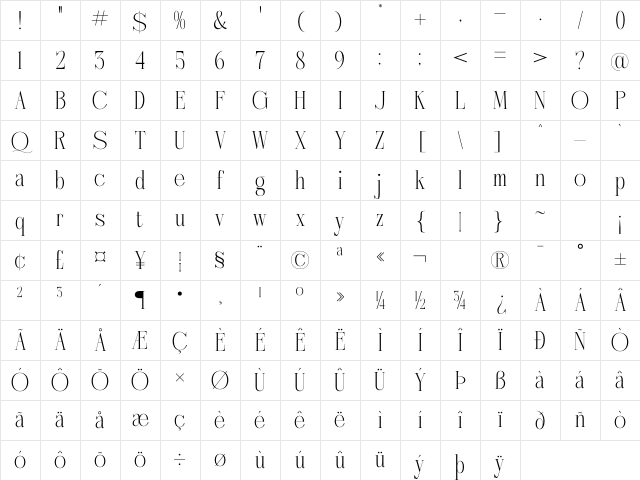
Complete Nebiard Regular glyph index. Displaying only characters natively supported by Nebiard Regular font.
Nebiard is a composed and adaptable typeface that performs quietly and consistently across a wide range of design contexts.